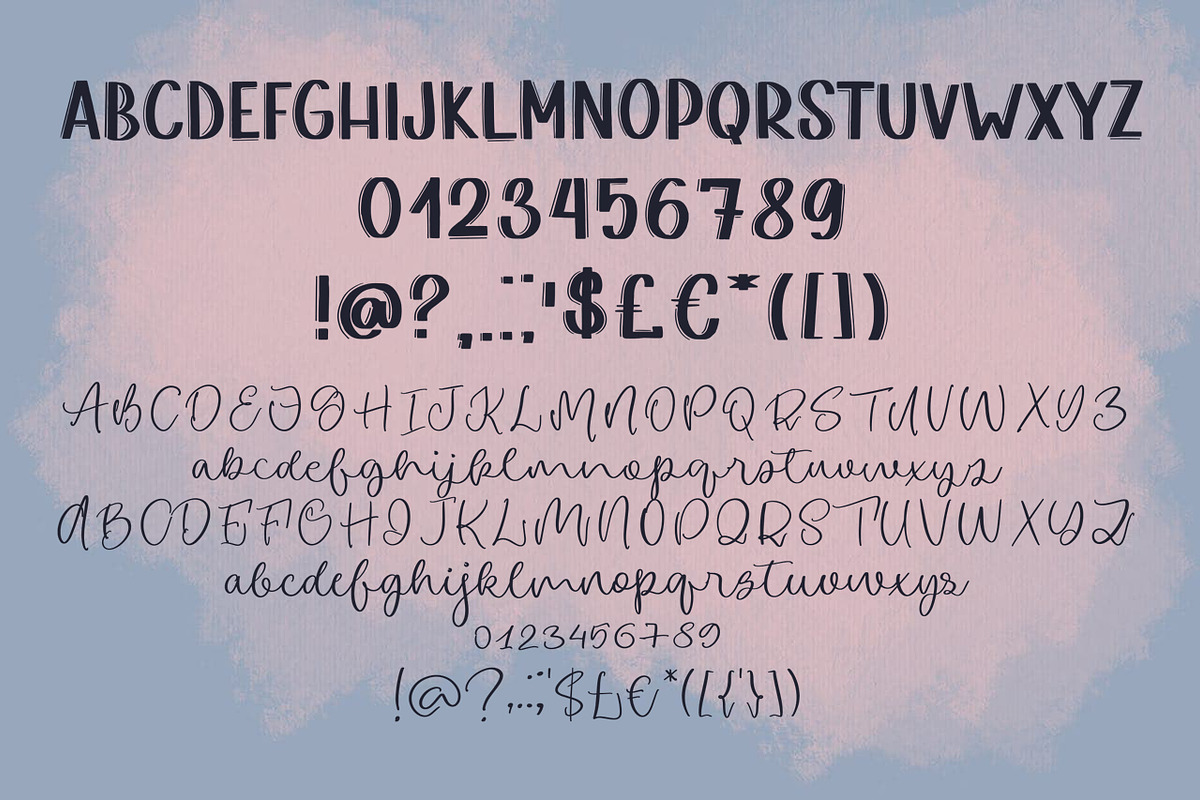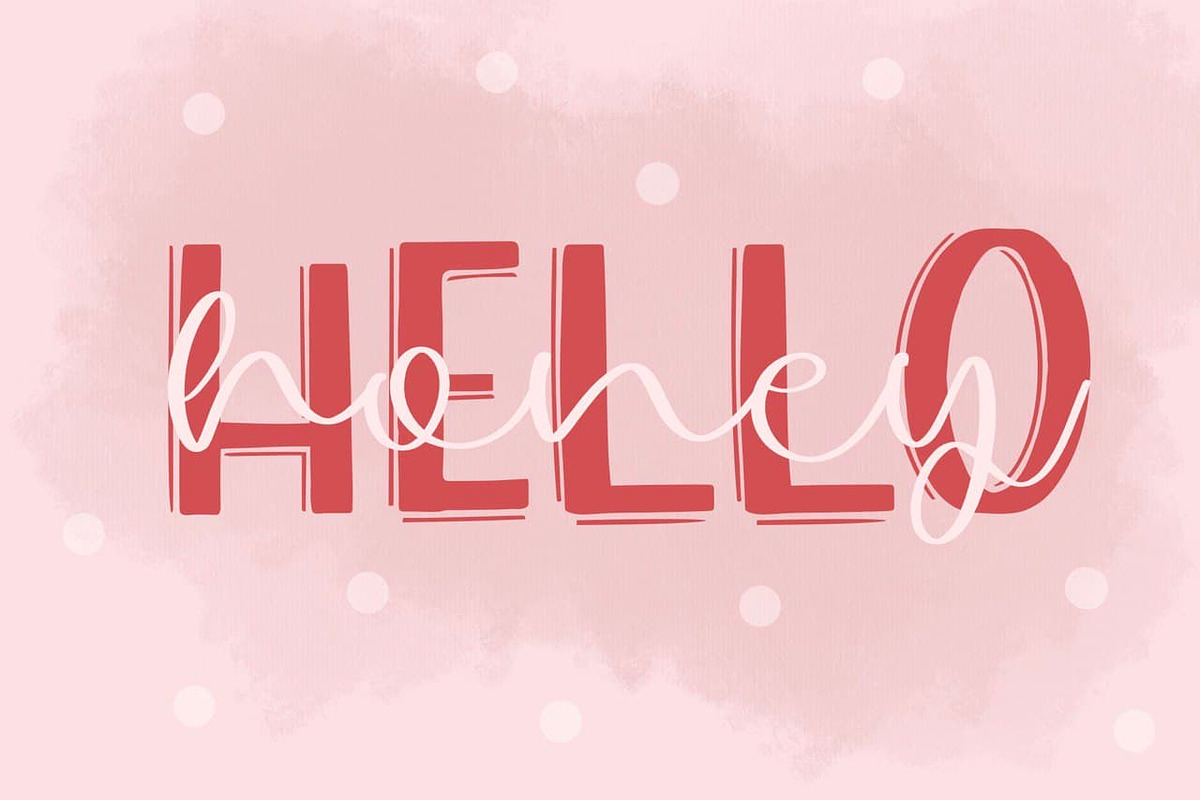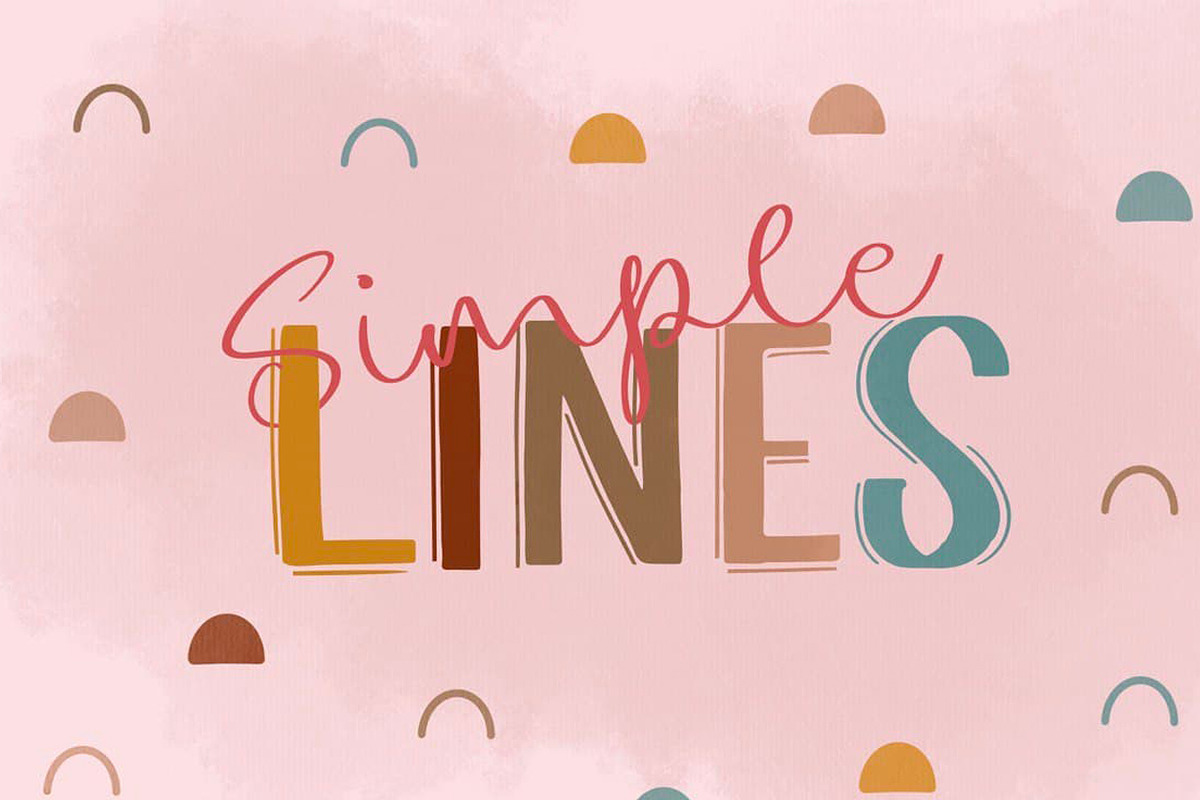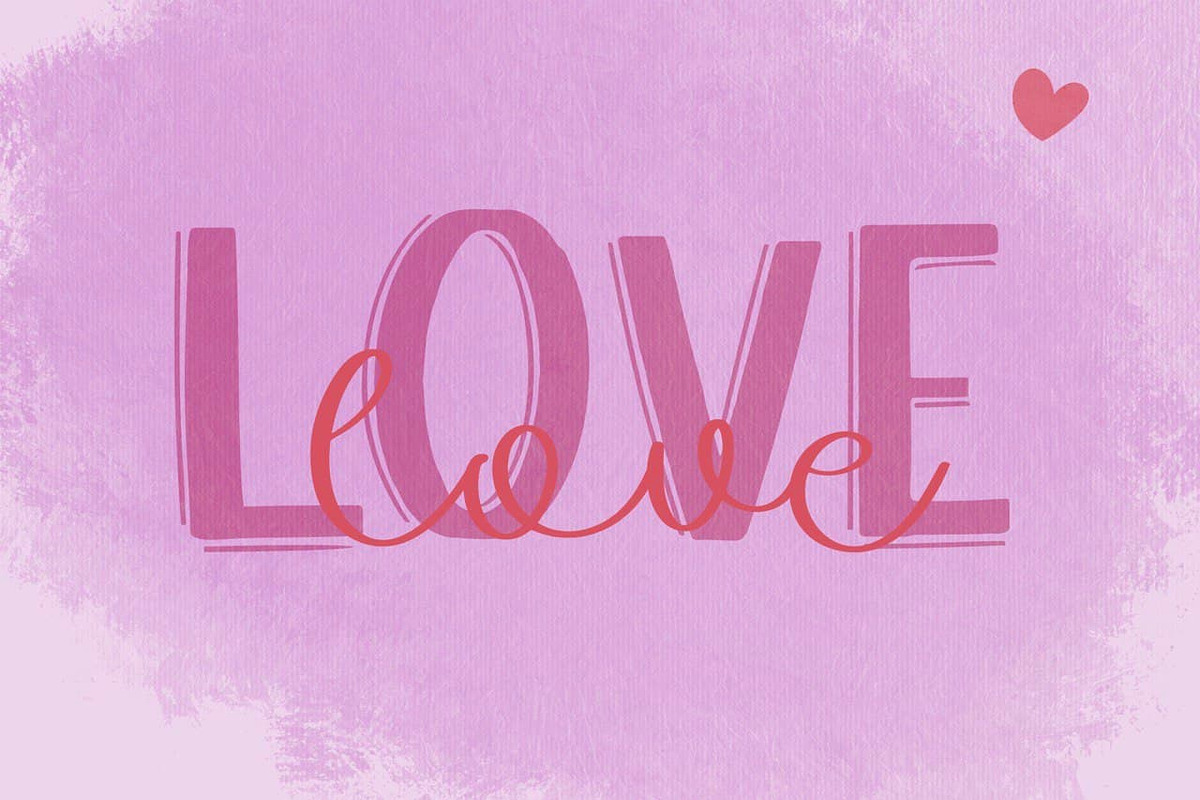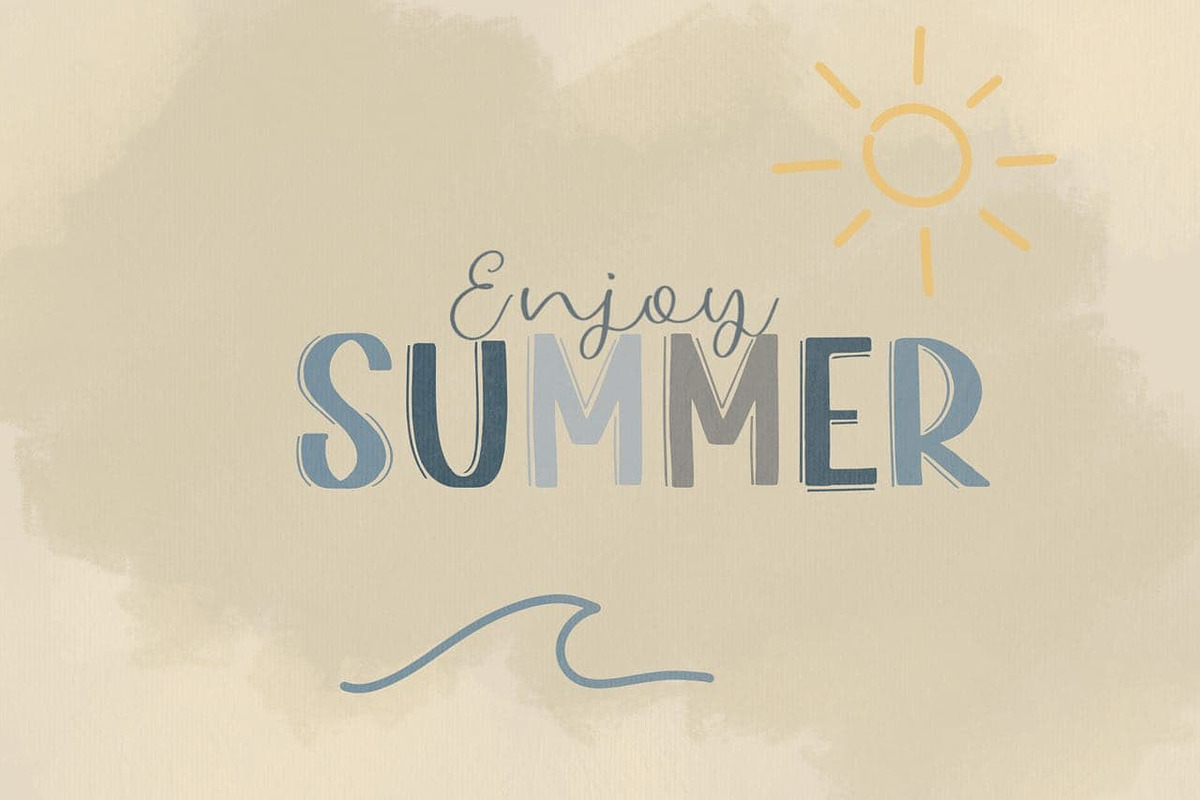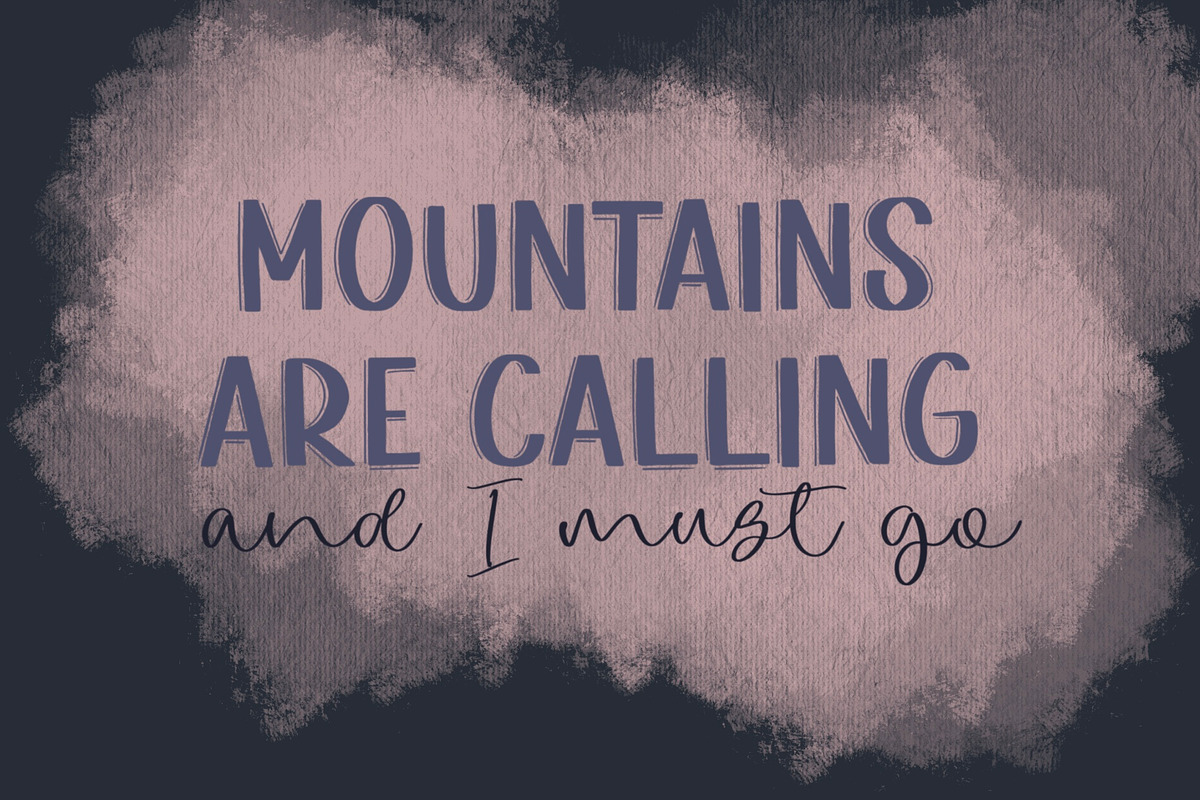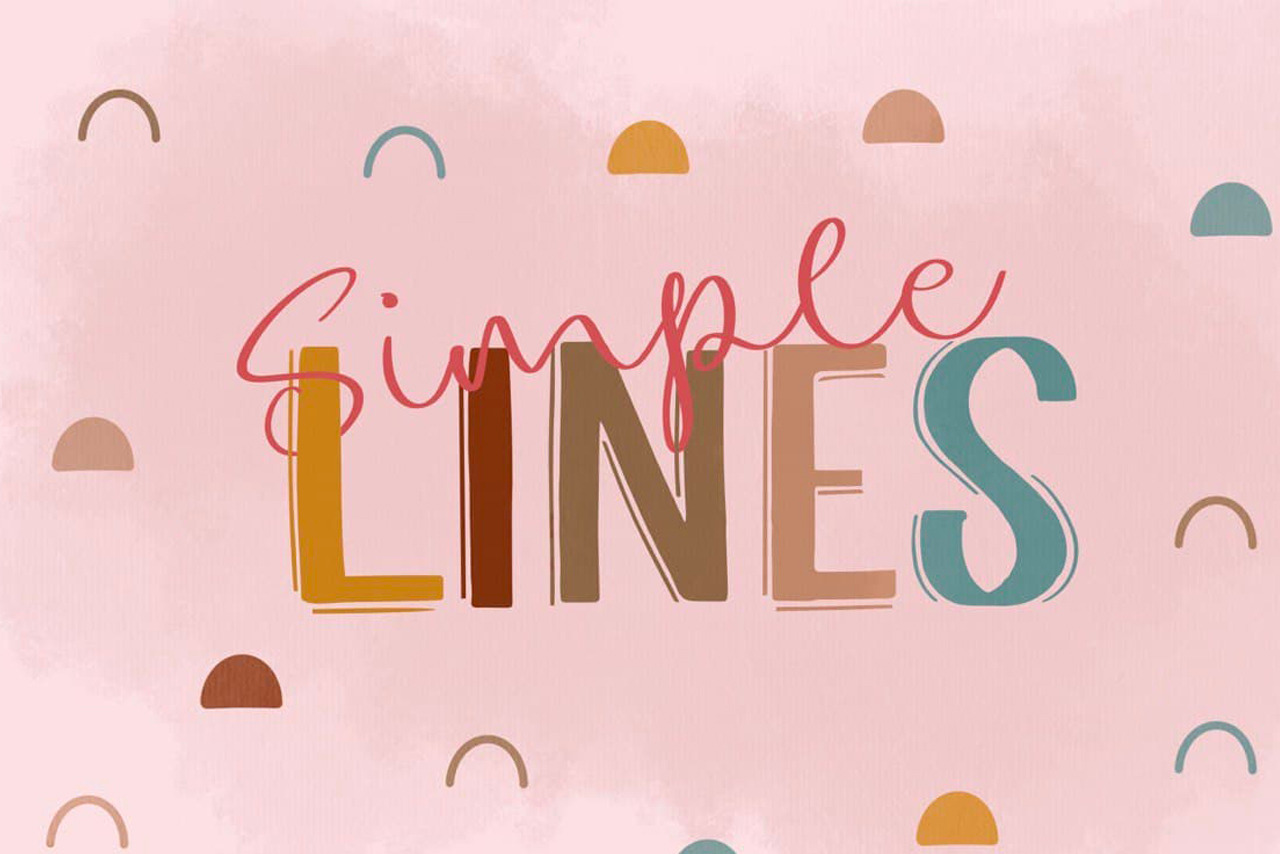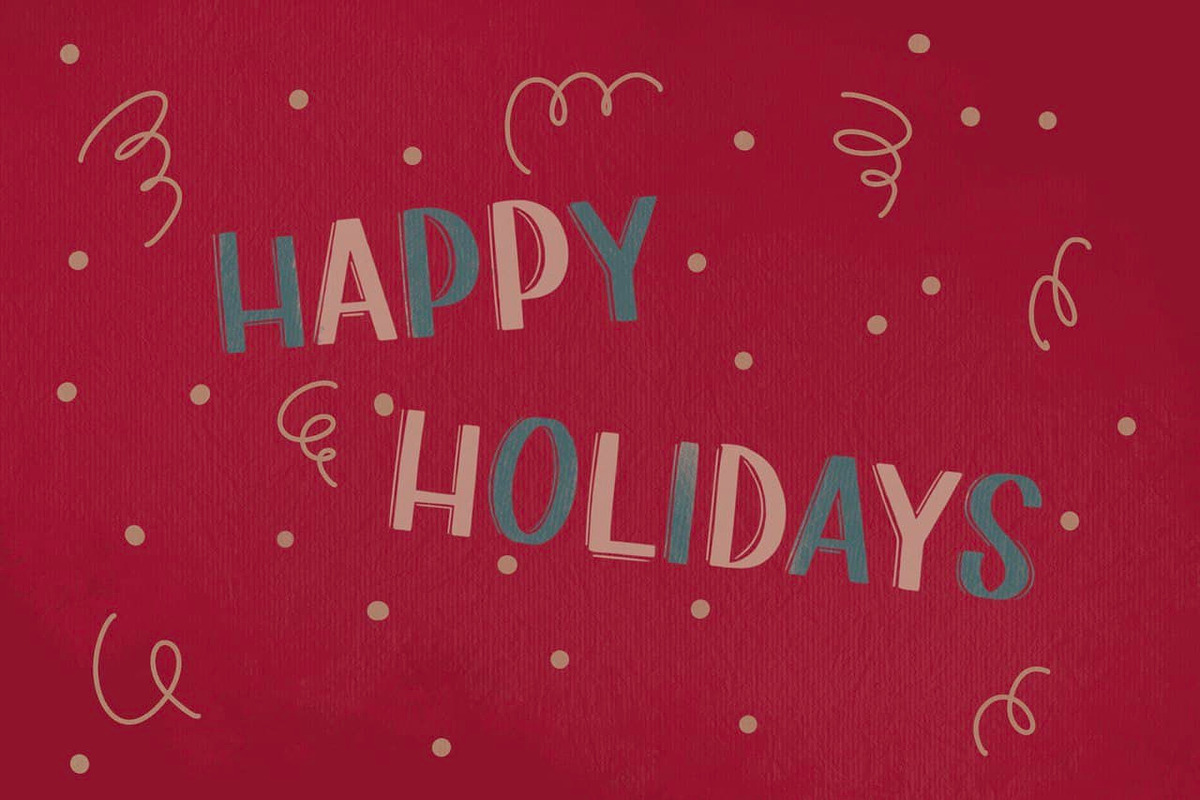
Simple Lines Font Duo
Simple Lines Font Duo - it's a cute handwritten font duo
Simple Lines Script.otf - standart and alternate uppercase, lowercase, numbers, punctuation
Simple Lines.otf - uppercase, numbers and punctuation